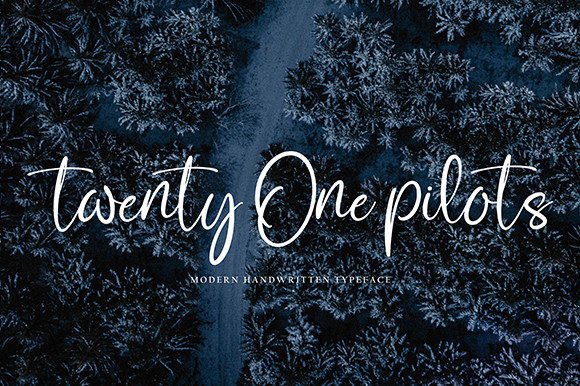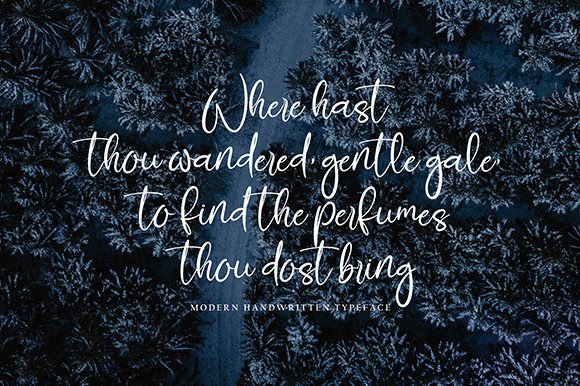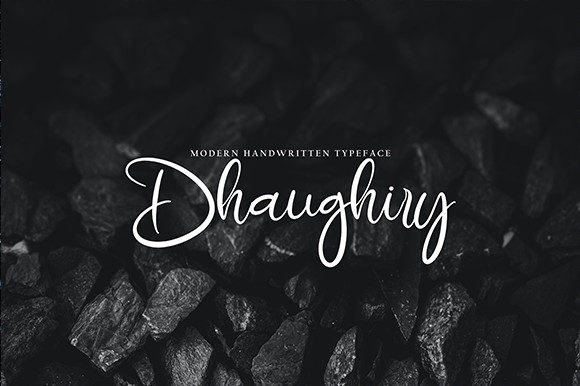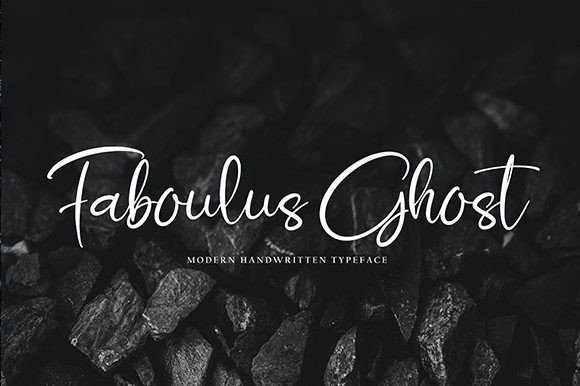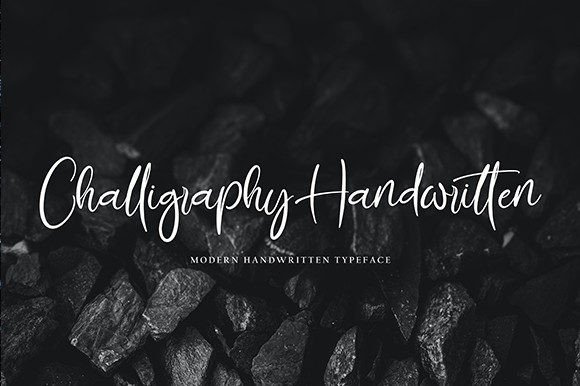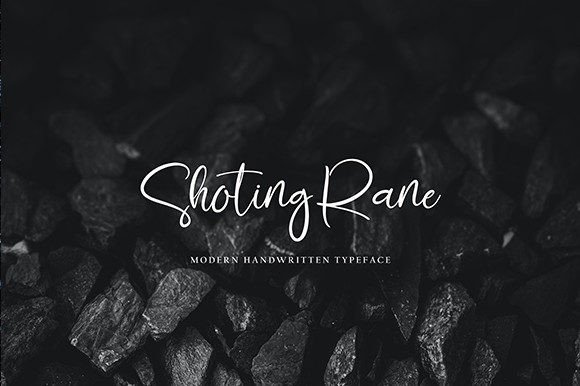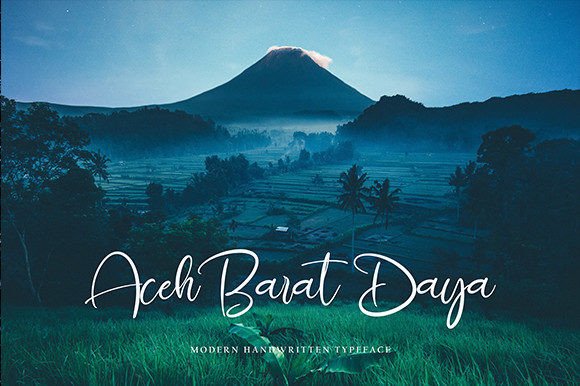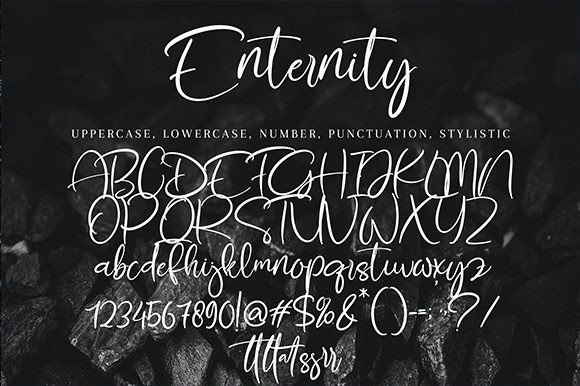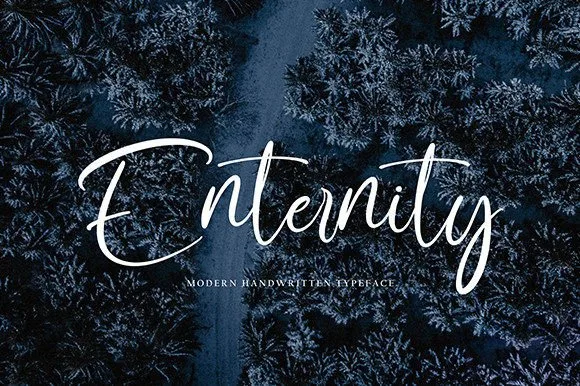
Enternity Font
About Enternity Font
**Enternity Font: Timeless Elegance in Handwritten Script**
The Enternity font is a flowing handwritten script typeface that effortlessly combines elegance with a touch of timelessness. This versatile font is a fantastic choice for a wide range of creative projects, allowing you to infuse a sense of sophistication and charm into your designs. Here’s how you can utilize the Enternity font to create stunning and memorable visual content:
1. **Wedding Invitations:** Craft exquisite wedding invitations and save-the-date cards that capture the essence of romance and elegance. The Enternity font’s flowing script adds a touch of sophistication to your wedding stationery.
2. **Greeting Cards:** Design heartfelt greeting cards for special occasions such as birthdays, anniversaries, and holidays. The font’s elegant style is perfect for conveying warm wishes and sentiments.
3. **Logo Design:** Create timeless and memorable logos for high-end brands, luxury boutiques, and upscale businesses that require an air of sophistication and class.
4. **Branding Collateral:** Extend the font’s use to business cards, letterheads, and other branding materials for companies that want to project an image of timeless refinement.
5. **Magazine Headings:** Elevate the look of your magazine layouts and articles by using the Enternity font for headings and subheadings, adding a touch of elegance to your editorial design.
6. **Product Packaging:** Enhance the packaging design for luxury and premium products, such as chocolates, perfumes, or skincare, with the Enternity font to communicate quality and sophistication.
7. **Fashion and Jewelry:** Apply the font to promotional materials, lookbooks, and advertisements for fashion brands and jewelry collections that target an audience appreciative of timeless elegance.
8. **Signature Quotes:** Create visually striking quote graphics for social media and digital platforms using the Enternity font to convey wisdom, inspiration, and sophistication.
9. **Book Covers:** Design captivating book covers for genres like romance, historical fiction, and self-help, where an elegant script font complements the narrative.
10. **Wine Labels:** Develop elegant and visually appealing labels for wine bottles and vineyard branding, showcasing the font’s timeless charm.
11. **Artistic Prints:** Produce artistic prints and posters featuring the Enternity font for home decor, art exhibitions, or gallery displays, adding a touch of classic beauty to your visual creations.
12. **Photography Watermarks:** Protect and brand your photography by using the font as a watermark, giving your images an air of sophistication.
13. **Calligraphy Projects:** Use the Enternity font for custom calligraphy projects, such as wedding vows, love letters, or personalized gifts, providing a beautifully handwritten touch.
14. **Event Invitations:** Design invitations for upscale events, galas, and fundraisers with the Enternity font to set the tone for a sophisticated gathering.
15. **Vintage and Retro Design:** Incorporate the font into vintage and retro-themed designs, where its timeless elegance complements nostalgic aesthetics.
16. **Luxury Packaging:** Elevate the packaging for high-end cosmetics, fragrances, and skincare products with the Enternity font’s grace and sophistication.
17. **Elegant Stationery:** Create elegant stationery sets for personal use or as a thoughtful gift, featuring the Enternity font on notecards, envelopes, and more.
18. **Interior Design Branding:** Use the font for branding and promotional materials for interior design firms and luxury home decor brands, emphasizing timeless style.
The Enternity font’s flowing and elegant script is a timeless choice for designers seeking to infuse their projects with sophistication and grace. Its distinctive and refined style adds a touch of luxury to a wide range of creative endeavors, making it a valuable asset in your design toolkit.